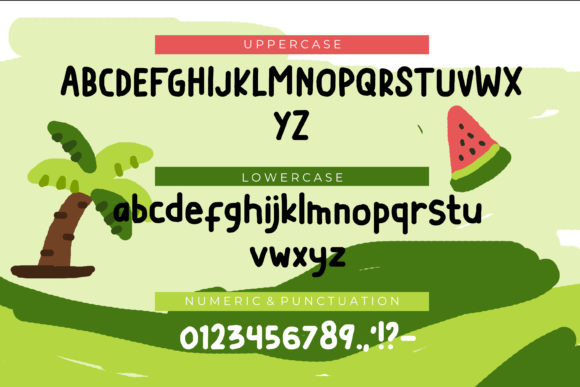
Fresh Watermelon Font
Fresh Watermelon is a unique and interesting display font. A little bit quirky, this font is a great choice for a wide variety of contexts!